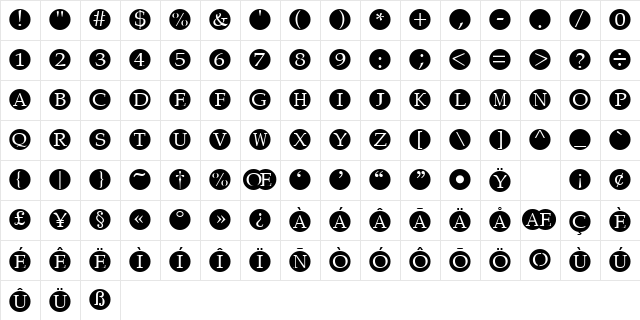
Vignette Regular Font Preview
Vignette Regular
Design Context for Vignette Typeface
Vignette takes a measured approach to typography — its balanced proportions and neutral character make it a reliable workhorse for both digital and print work.